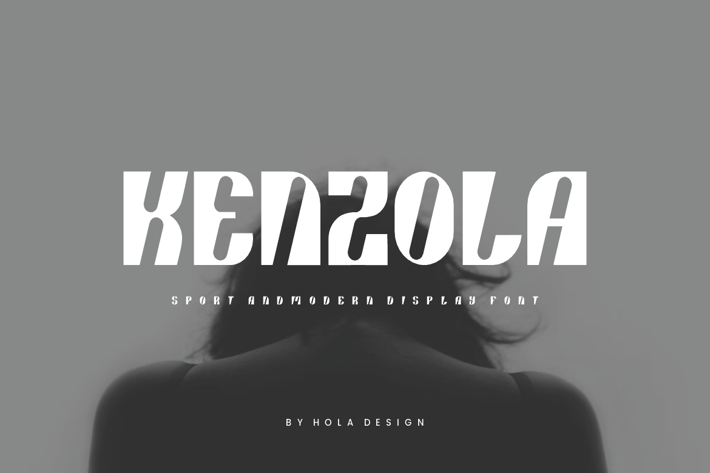
Kenzola - Sport Font
Kenzola - Sport Font Font is unique . Ready to use for your design like labeling, movie sceen, poster, movie title, gigs, album covers, logos, and much more.